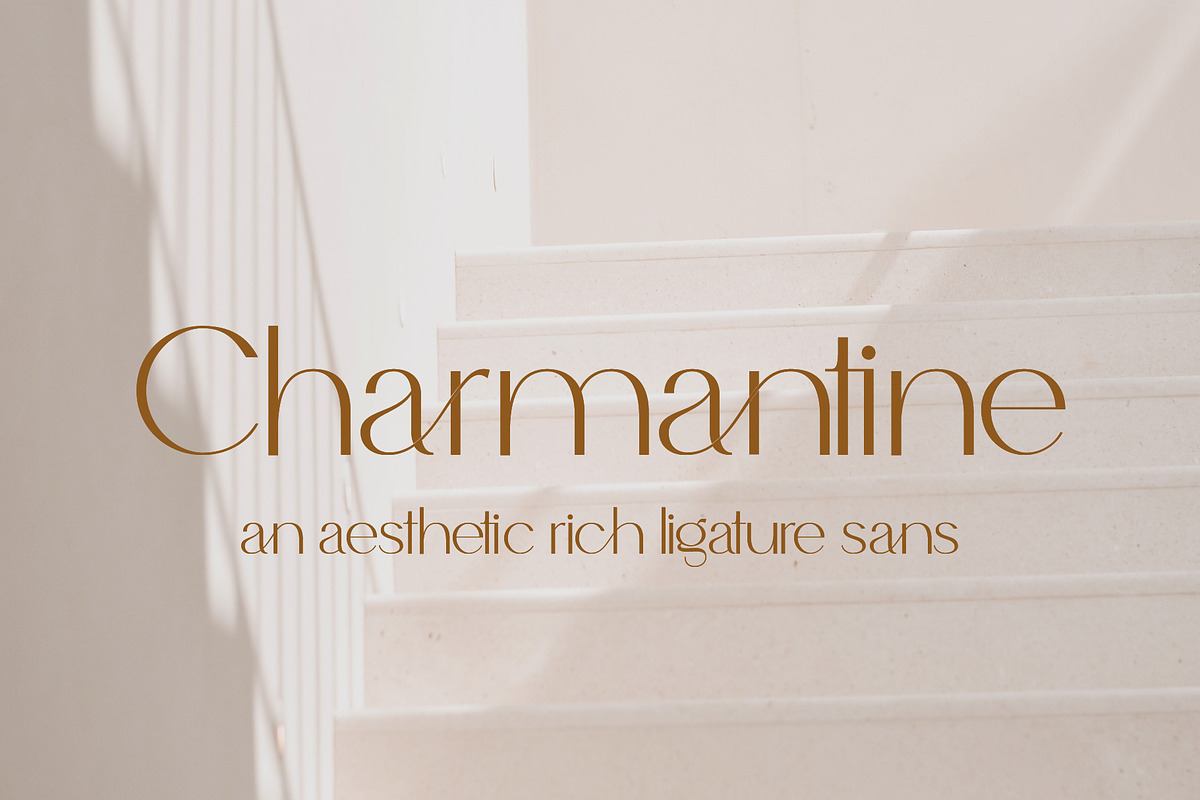
The Charmantine A Rich Ligatured Sans Font Free Download is a sophisticated and modern sans-serif typeface featuring rich ligatures that bring a unique touch to your designs. With its smooth, clean lines and stylish ligature combinations, this font is perfect for creating elegant logos, branding materials, editorial layouts, and more. The refined design of Charmantine adds a luxurious and contemporary flair, making it ideal for high-end branding, fashion, and creative projects. Its versatile ligatures give your typography a polished and distinctive edge, ensuring that your designs stand out. Please note, for commercial use, a license purchase is required. However, you can easily download the Charmantine A Rich Ligatured Sans Font Free Download for free for personal use and explore its potential. Download the Charmantine A Rich Ligatured Sans Font Free Download today and elevate your designs with this elegant, modern font.